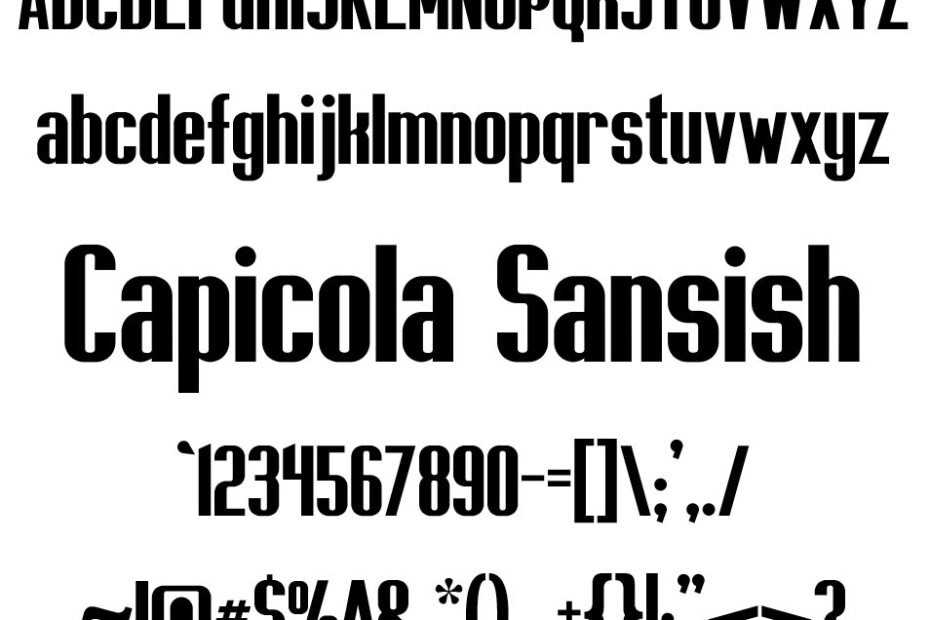
The Perfect Middle Ground: Introducing Capicola Sansish Font
There’s a moment in every design project when you need to make a statement, but you don’t want to go full-on bold. The words ‘almost there’ might be echoing in your head as you scroll through your font options, searching for that elusive middle ground. For designers who’ve been there, done that, and are still searching, we’ve got some exciting news.
Meet the Capicola Sansish Font – a slightly thick sans serif font that’s designed to bridge the gap between subtlety and impact. With its unique blend of style and restraint, Capicola Sansish Font is the perfect solution for designers who want to add some depth to their typography without overwhelming their audience.
- Unique Characteristics: This font features a unique blend of modern and vintage elements, with a distinctive sans-serif design and a touch of elegance.
Capicola Sansish Font Review
As a designer, I’ve had the chance to work with various fonts, and I’m excited to share my thoughts on the Capicola Sansish Font. Here’s my honest review:
- The font has a unique and modern design that sets it apart from other sans-serif fonts.
- The letterforms are well-balanced and legible, making it perfect for body text and headings.
- The font’s x-height is well-proportioned, which makes it easy to read and scan.
- The font’s character set is limited, which may not be suitable for projects that require a wide range of special characters.
- The font’s italic and bold styles are not as well-designed as the regular style, which can be a letdown.
- The font may not be suitable for projects that require a high level of font customization, as it’s a relatively straightforward sans-serif font.
The Capicola Sansish Font is a solid addition to any designer’s font library. While it has some limitations, its unique design and well-balanced letterforms make it a great choice for modern projects. However, it may not be suitable for projects that require a wide range of font styles or customization options.
The Capicola Sansish font is a versatile and modern sans-serif font, making it suitable for a variety of applications, including:
– Headings and titles
– Body text in publications and websites
– Logos and branding
– Packaging design